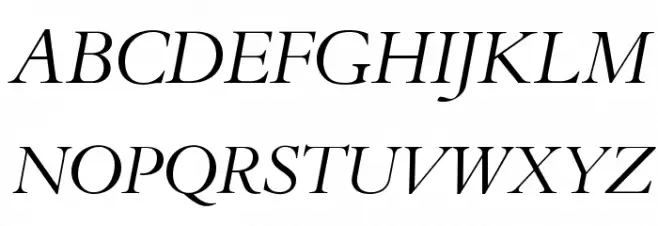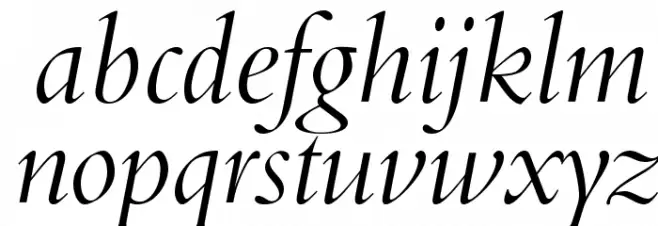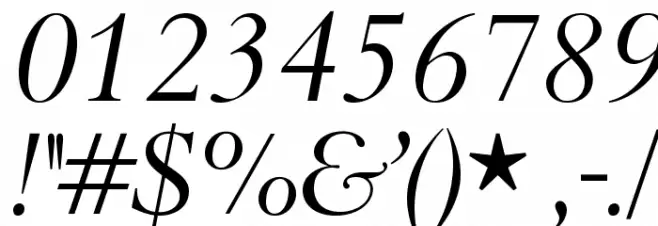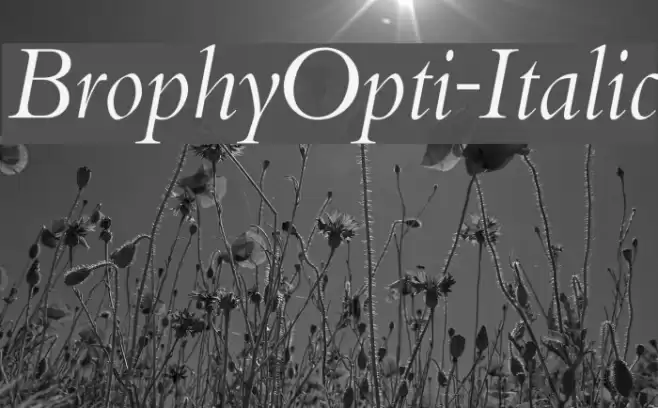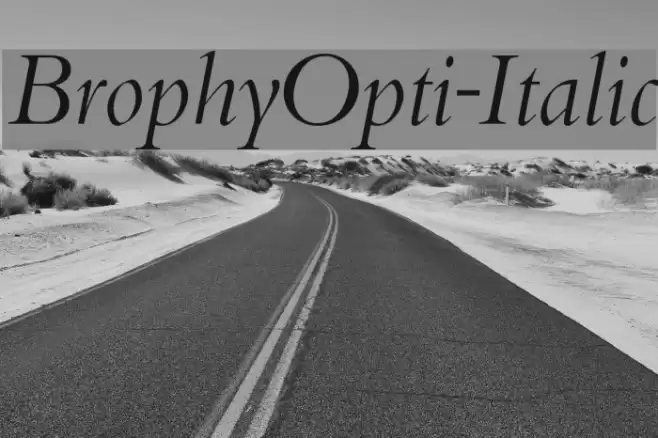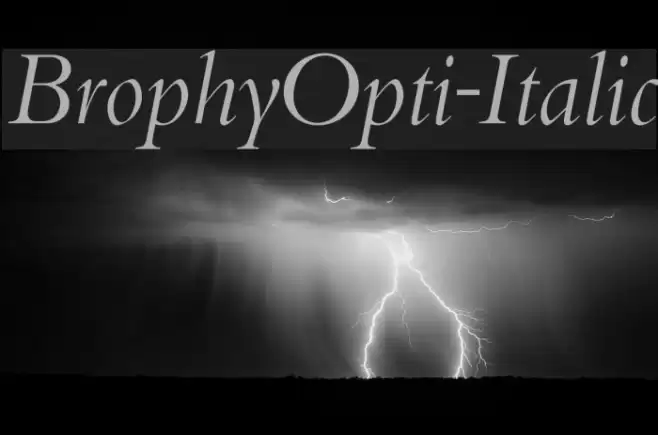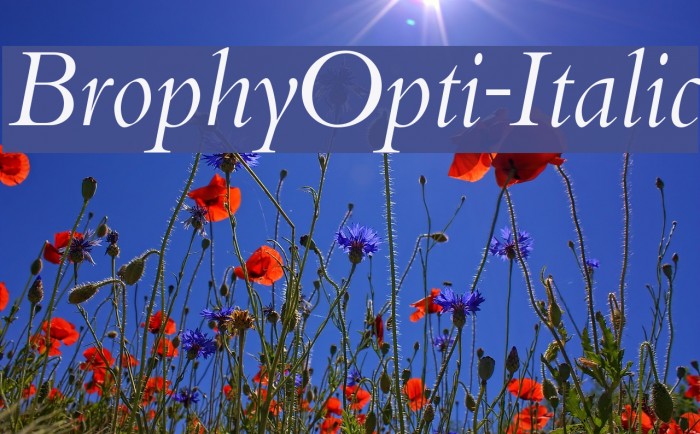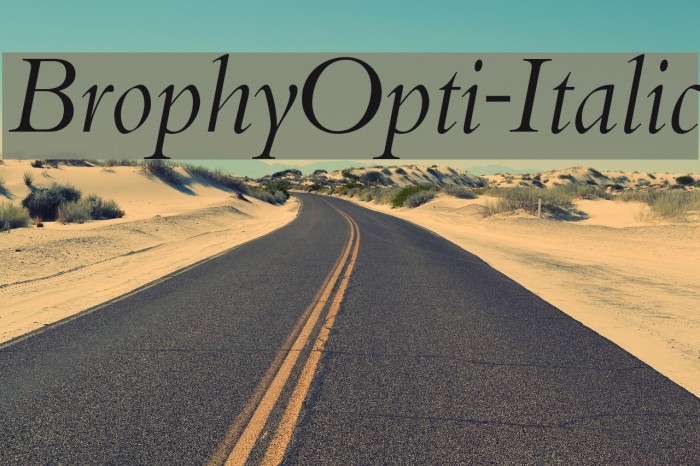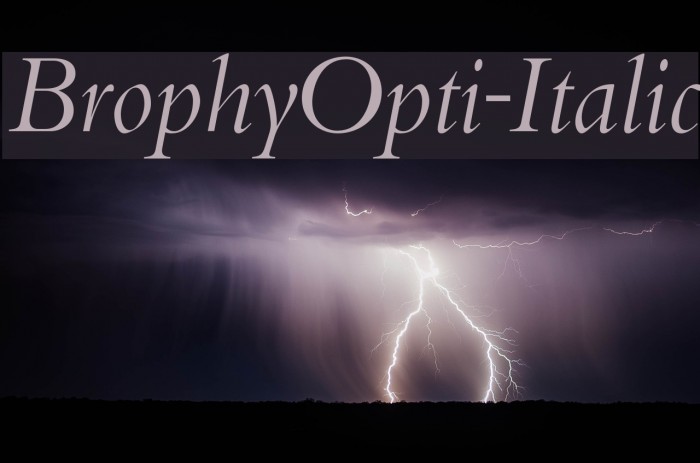
BrophyOpti-Italic
This elegant serif font features a classic italic style with smooth, flowing curves and a refined appearance. The uppercase letters are tall and slightly condensed, while the lowercase letters maintain a consistent slant, enhancing the font's graceful aesthetic. The numerals are proportionate and blend seamlessly with the alphabetic characters. Special characters are thoughtfully designed, maintaining the font's overall sophistication. The font's high contrast in stroke thickness adds to its readability and visual appeal, making it suitable for a variety of design applications.
An elegant serif italic font with high contrast and graceful curves.
- Proposed Projects: Ideal for luxury branding, wedding invitations, editorial design, and elegant packaging.
- Category: Serif
- Width: Condensed
- Contrast: High
- Overall Style: Classic
- Use Case: Headlines, Logos, Invitations